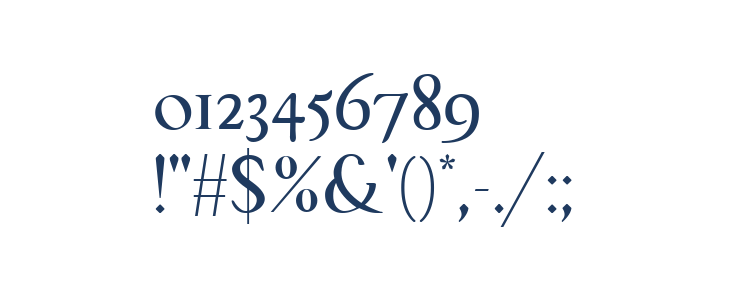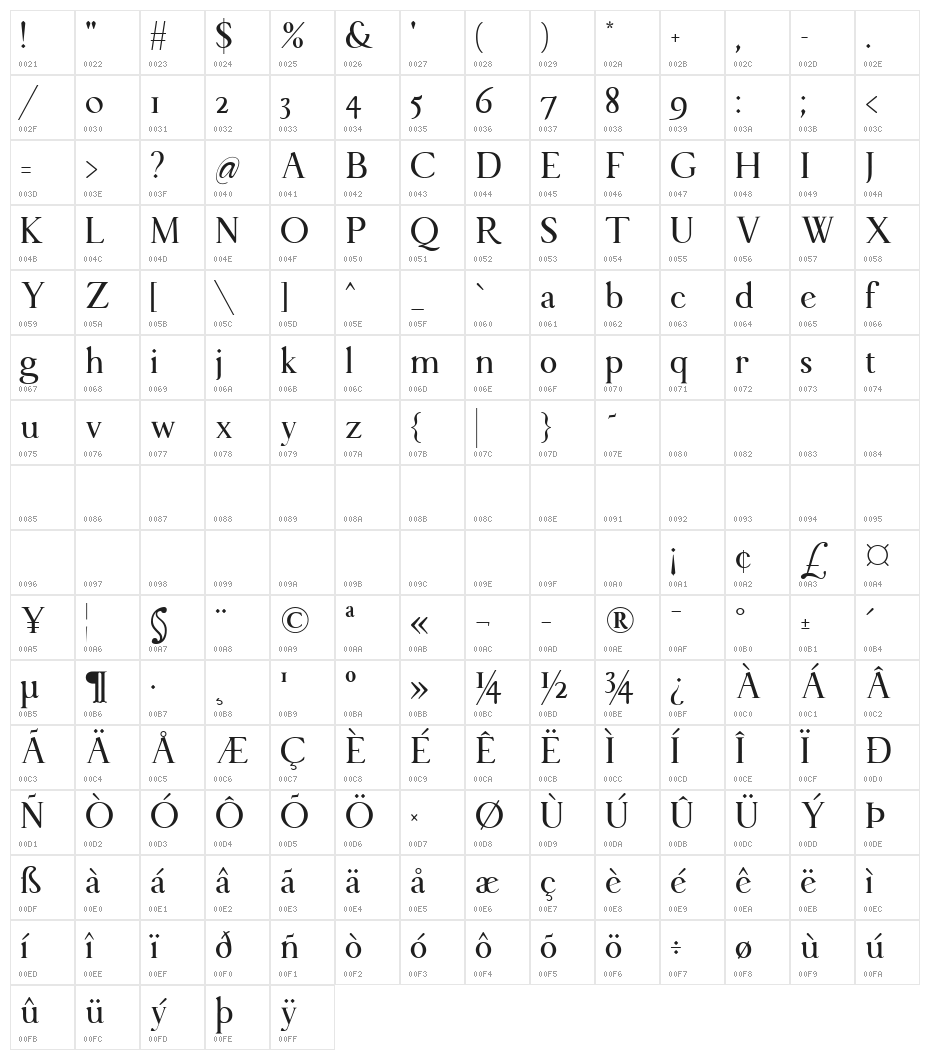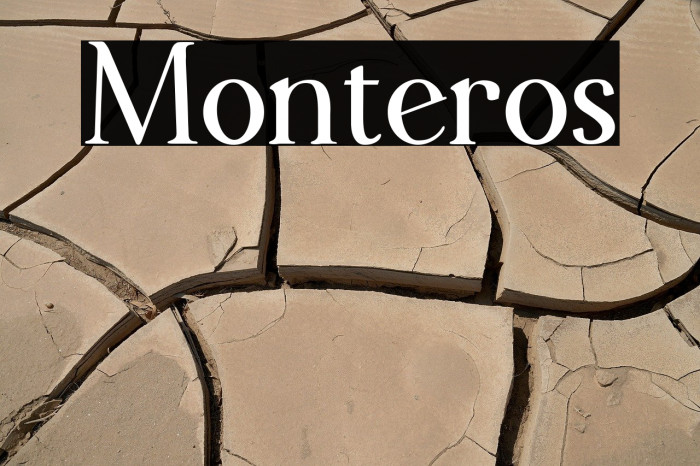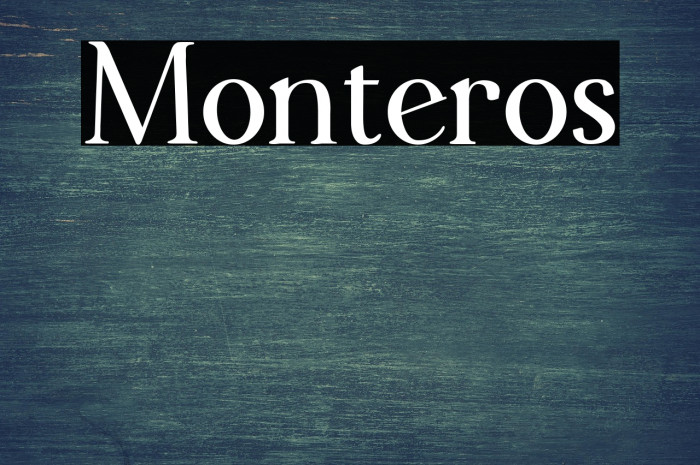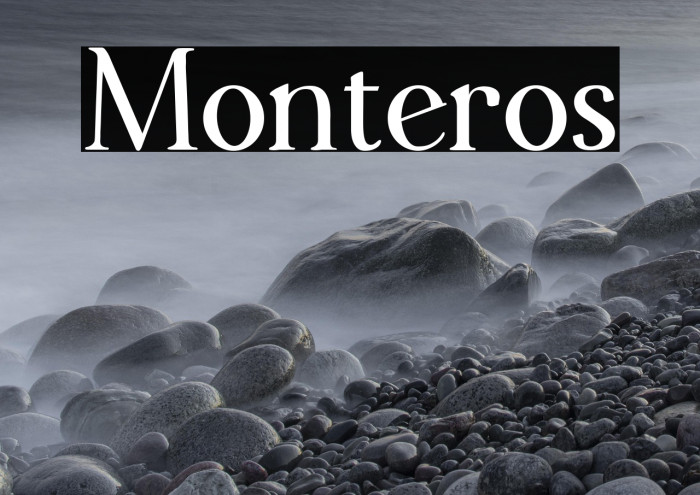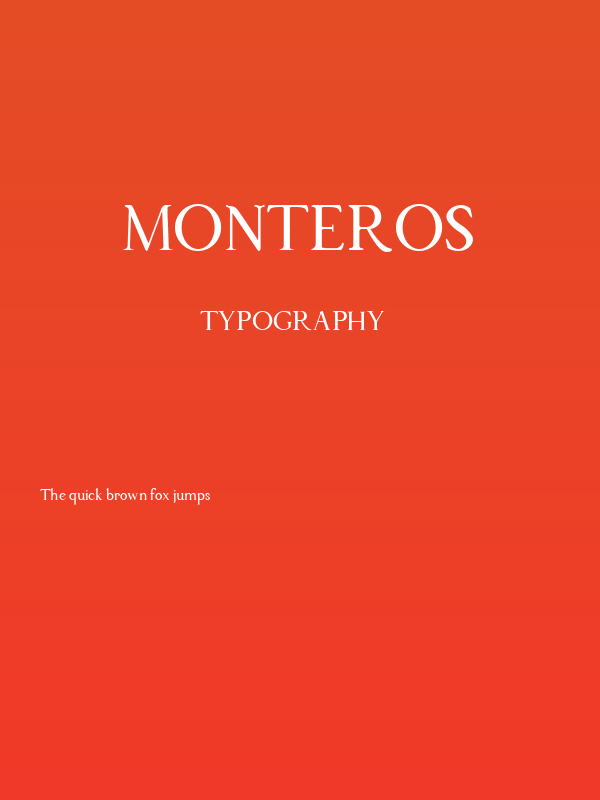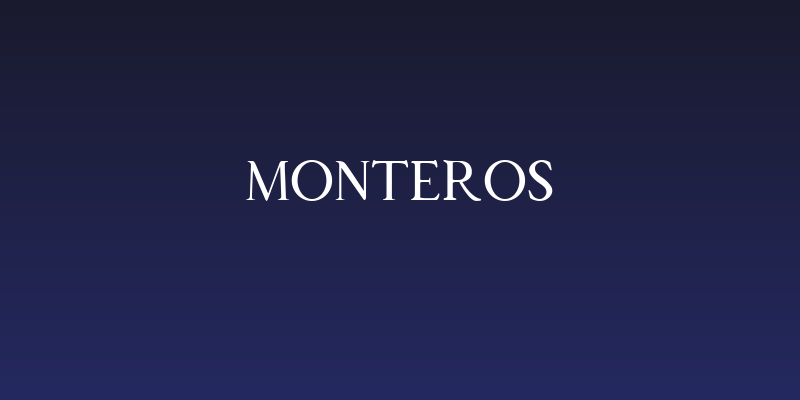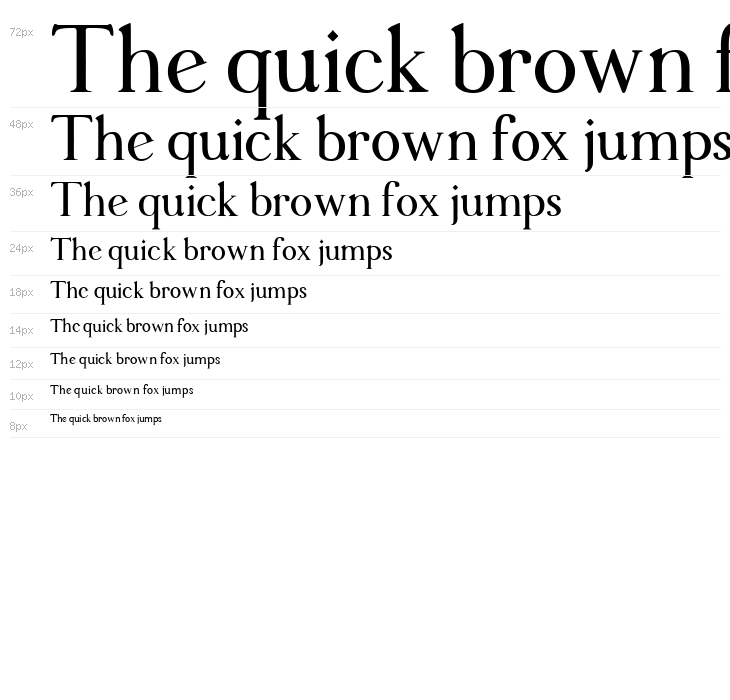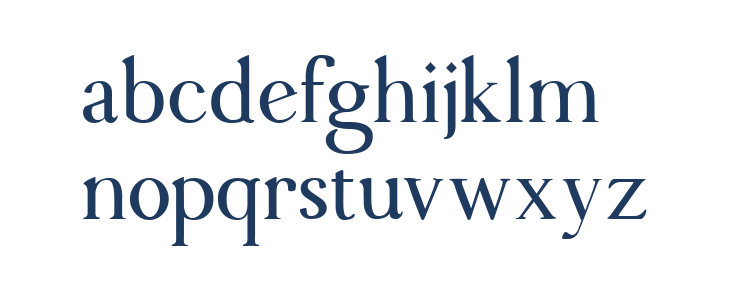
Monteros Font
Monteros Description
This font features a classic serif style with elegant and refined strokes. The uppercase letters are tall and stately, while the lowercase letters maintain a balanced and harmonious appearance. The numerals are distinct and easy to read, with a traditional design that complements the overall aesthetic. Special characters are thoughtfully crafted, adding to the font's versatility. The serifs are pronounced, providing a timeless and sophisticated look suitable for a variety of applications.
| Overall Style | Classic |
| Use Case | Headlines, Body text, Logos |
| Proposed Projects | Ideal for book covers, editorial design, branding, and formal invitations. |